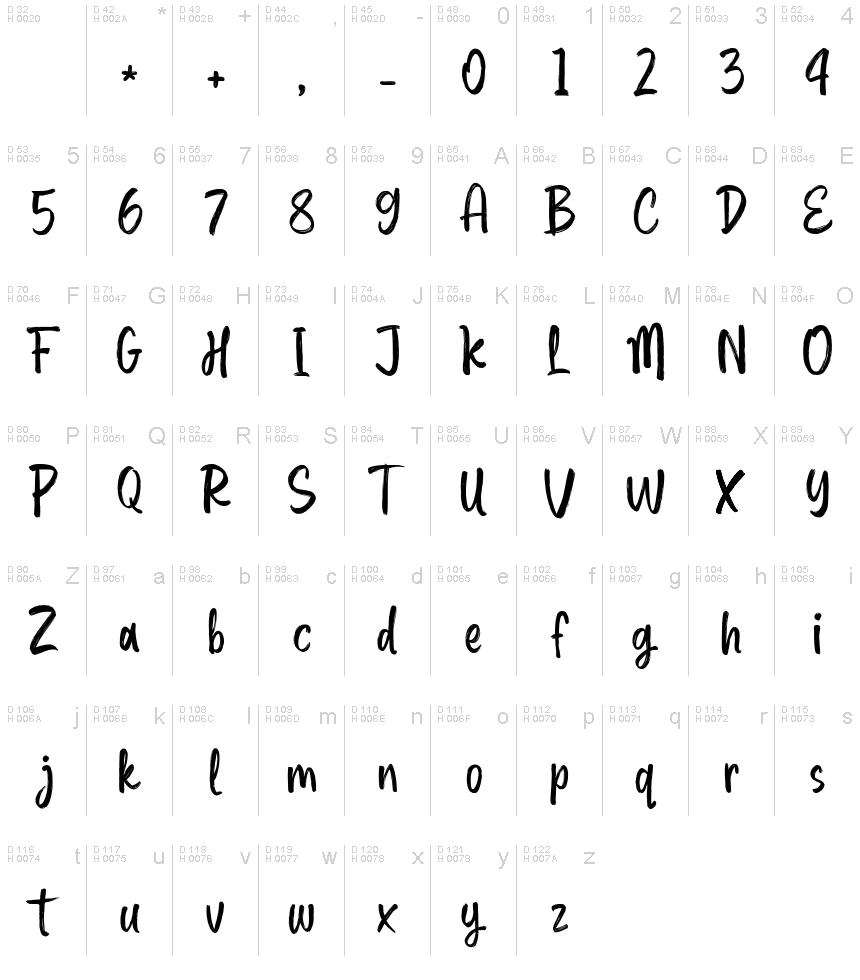
Midsta Demo Regular
Midsta is a captivating handwritten font that exudes a bold, marker-like aesthetic. Its fluid, expressive strokes and organic, imperfect edges lend it a distinct personality, striking a balance between artistry and functionality. The font's versatility shines through, making it a compelling choice for a wide range of design applications, from branding and packaging to editorial work and digital interfaces.
Midsta's raw, authentic charm can infuse projects with a sense of energy and personality, elevating the visual impact and connecting with audiences on an emotive level.